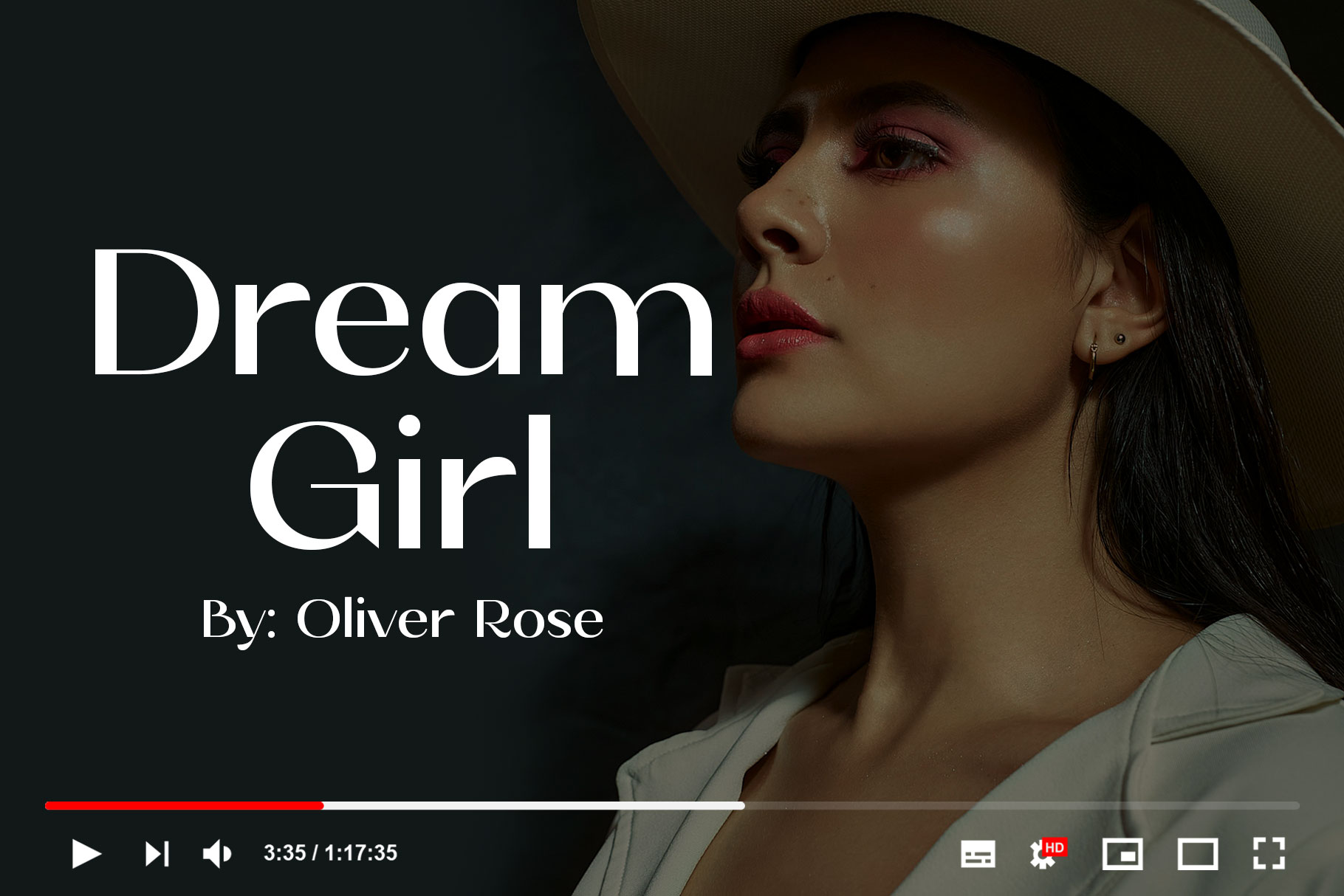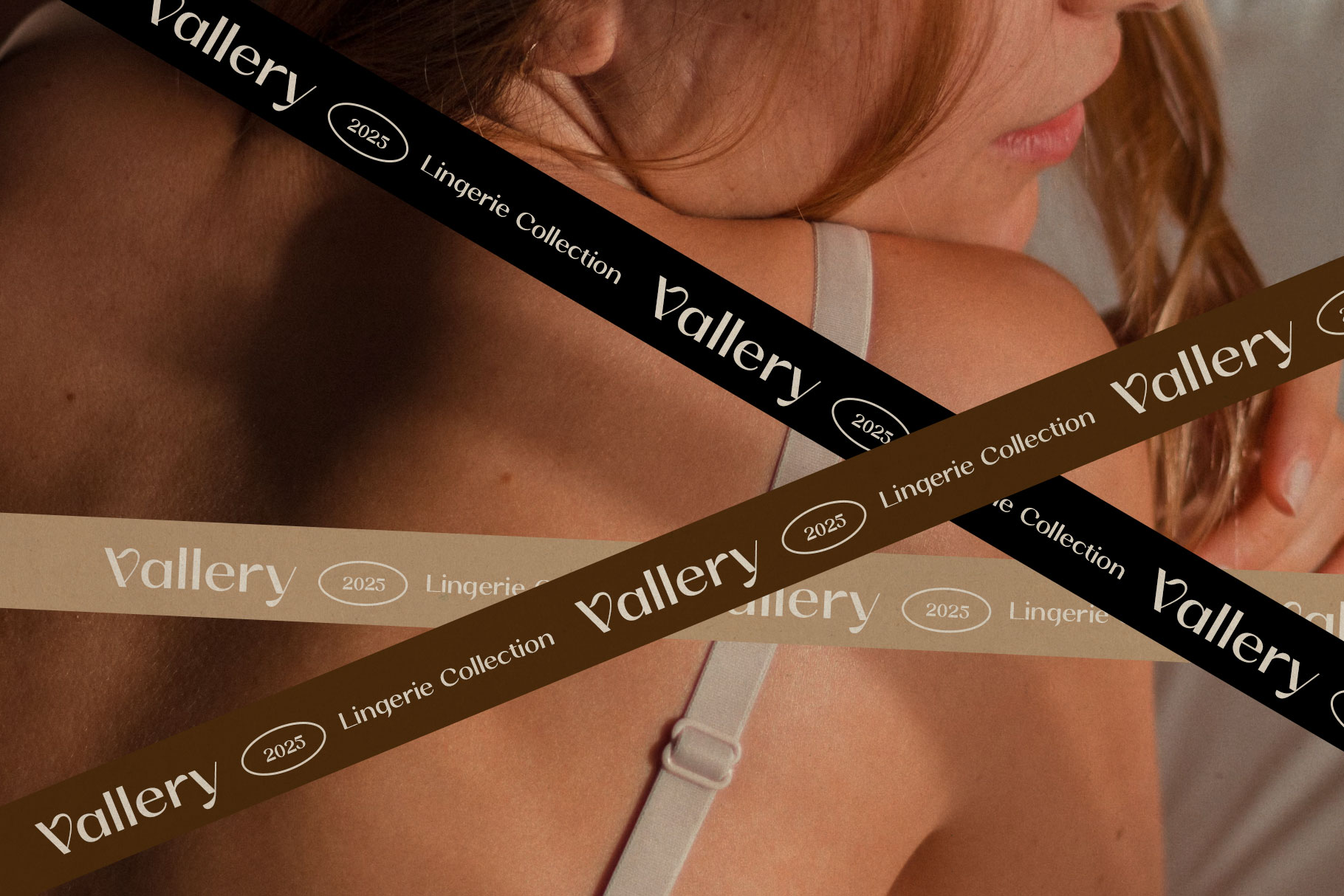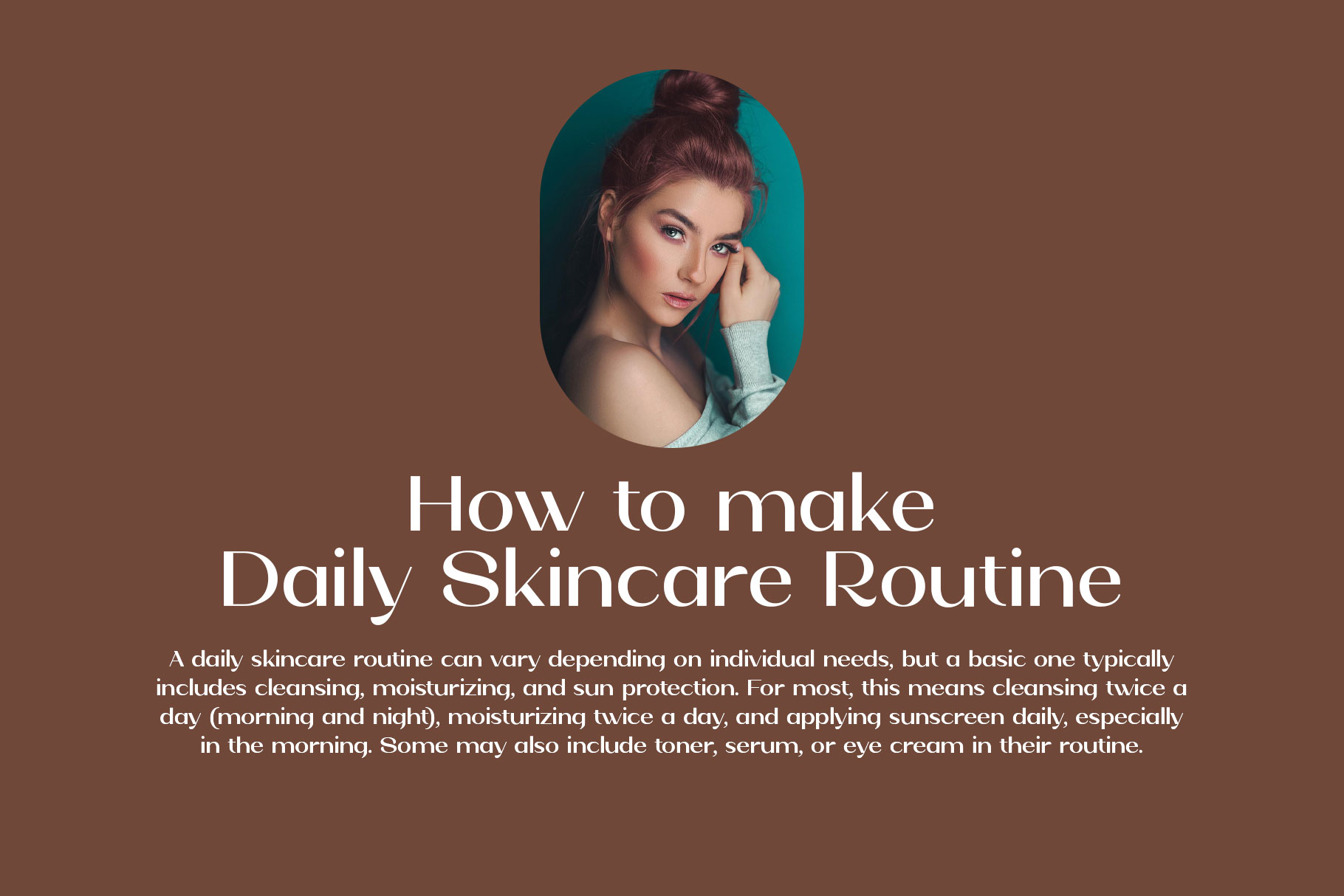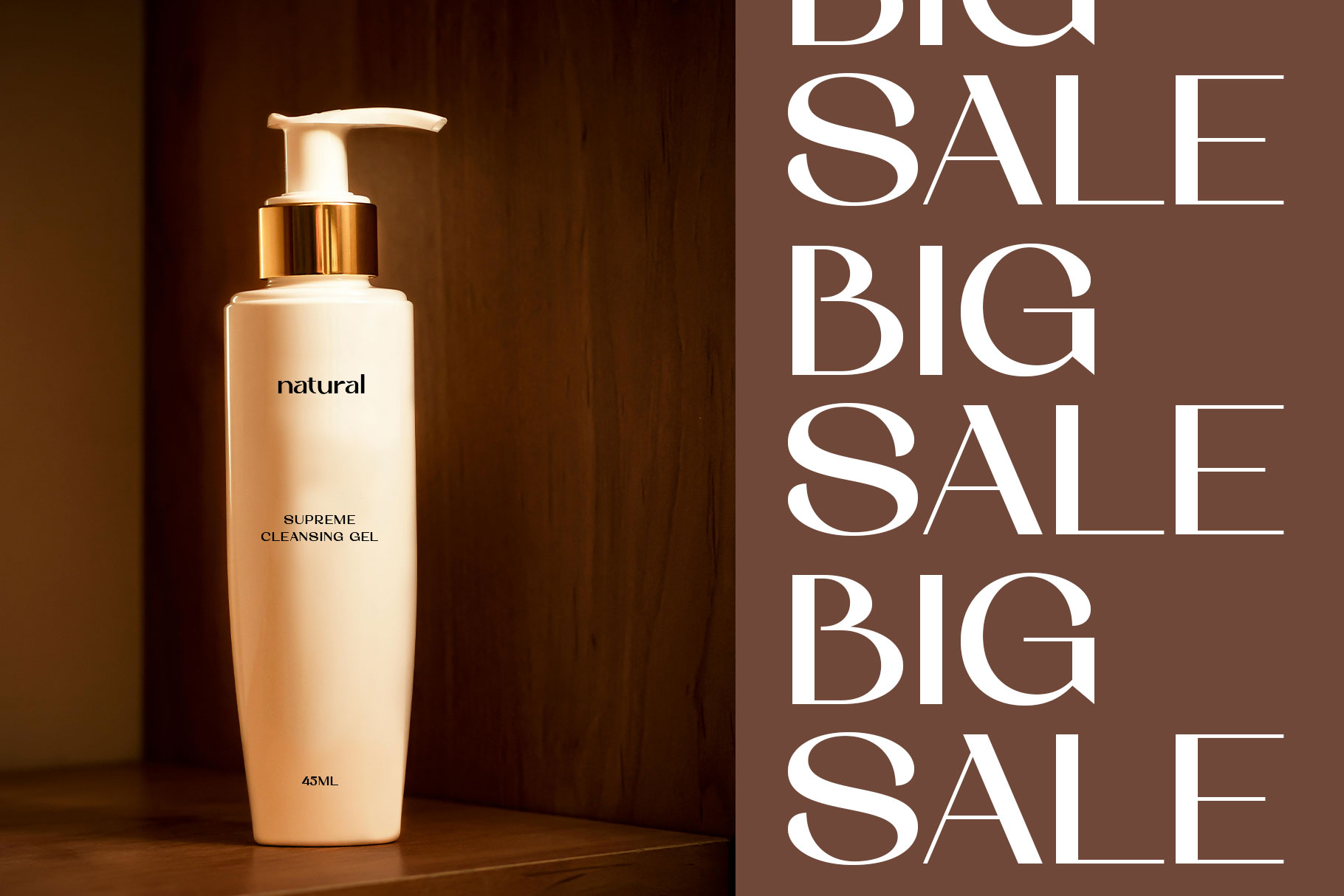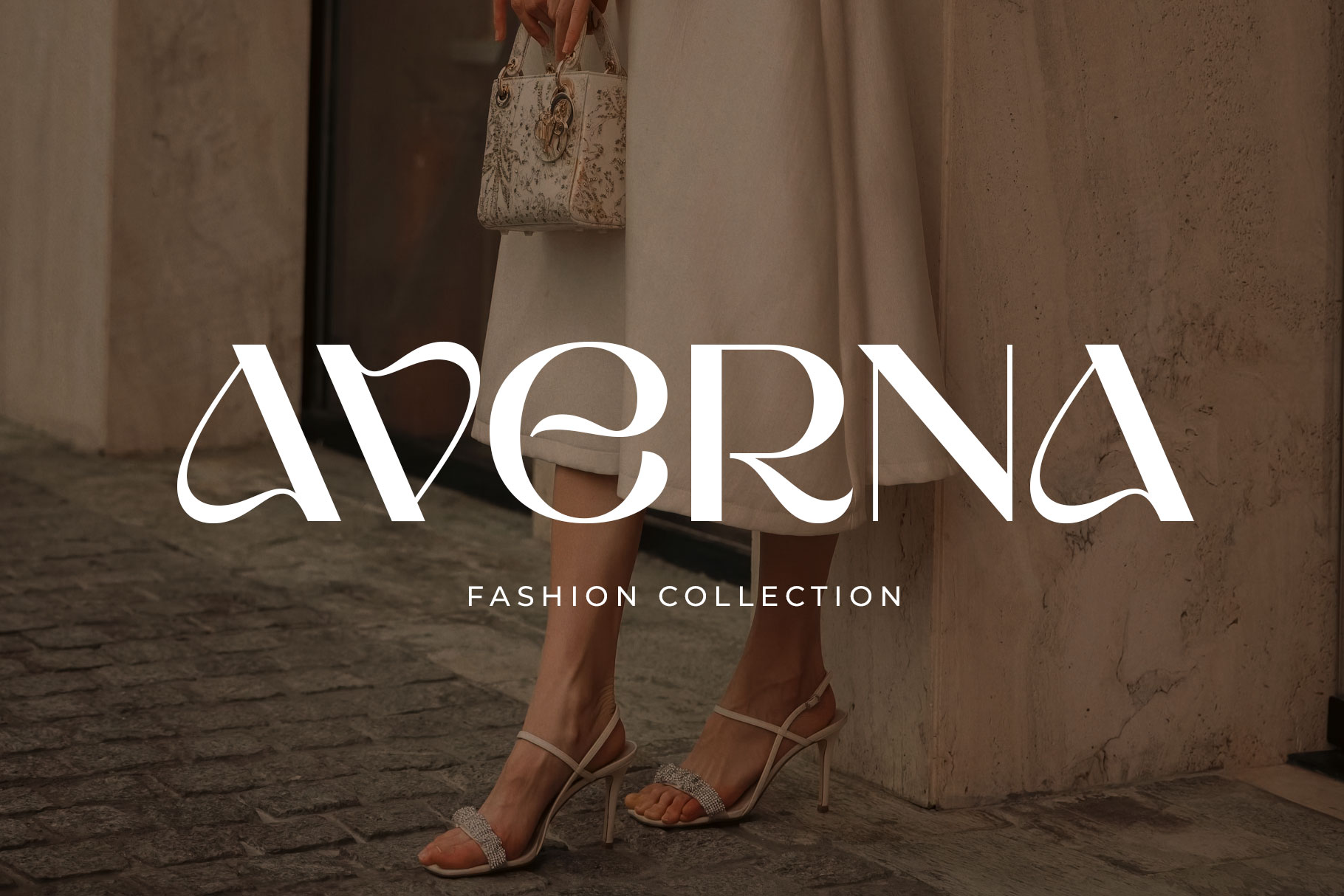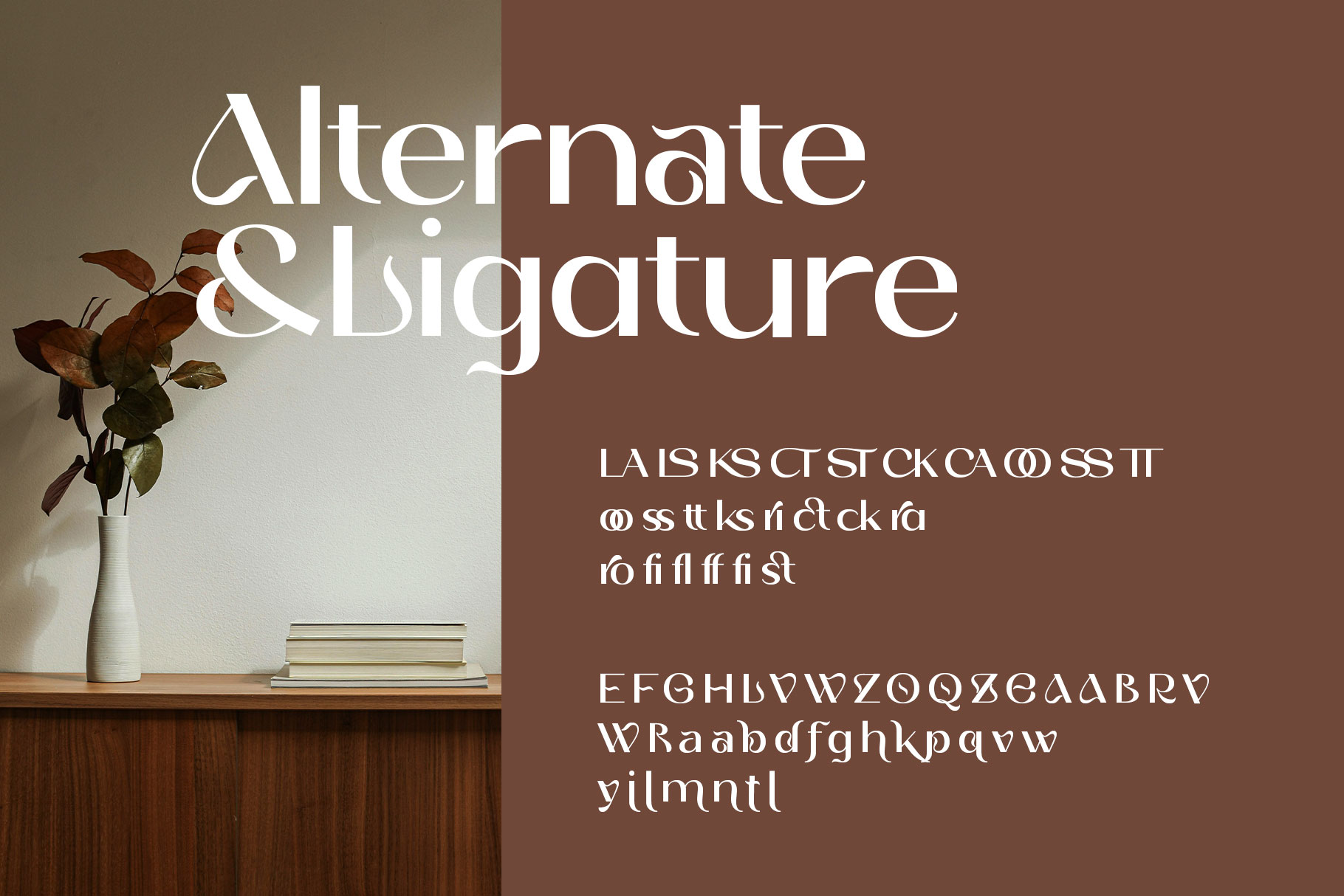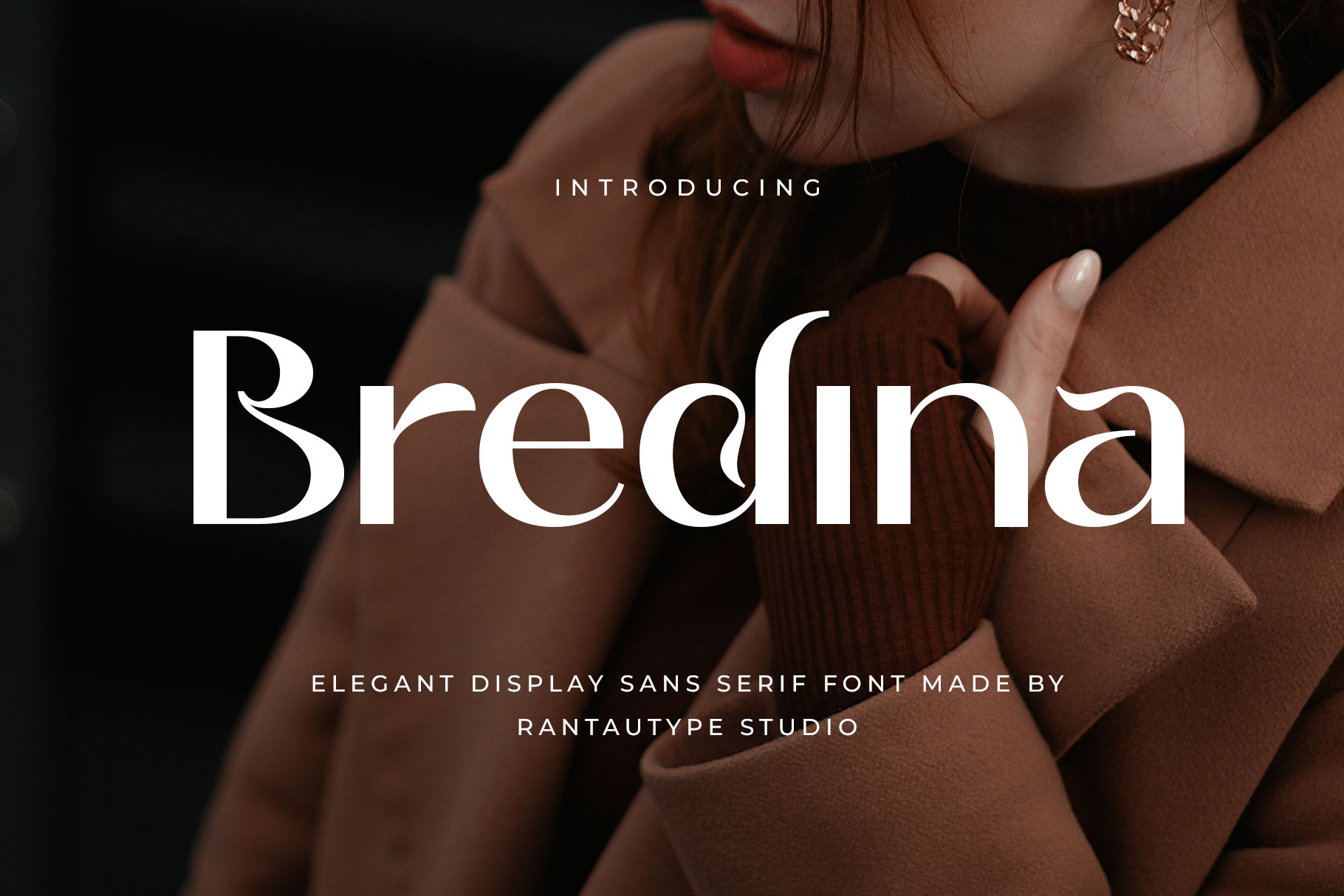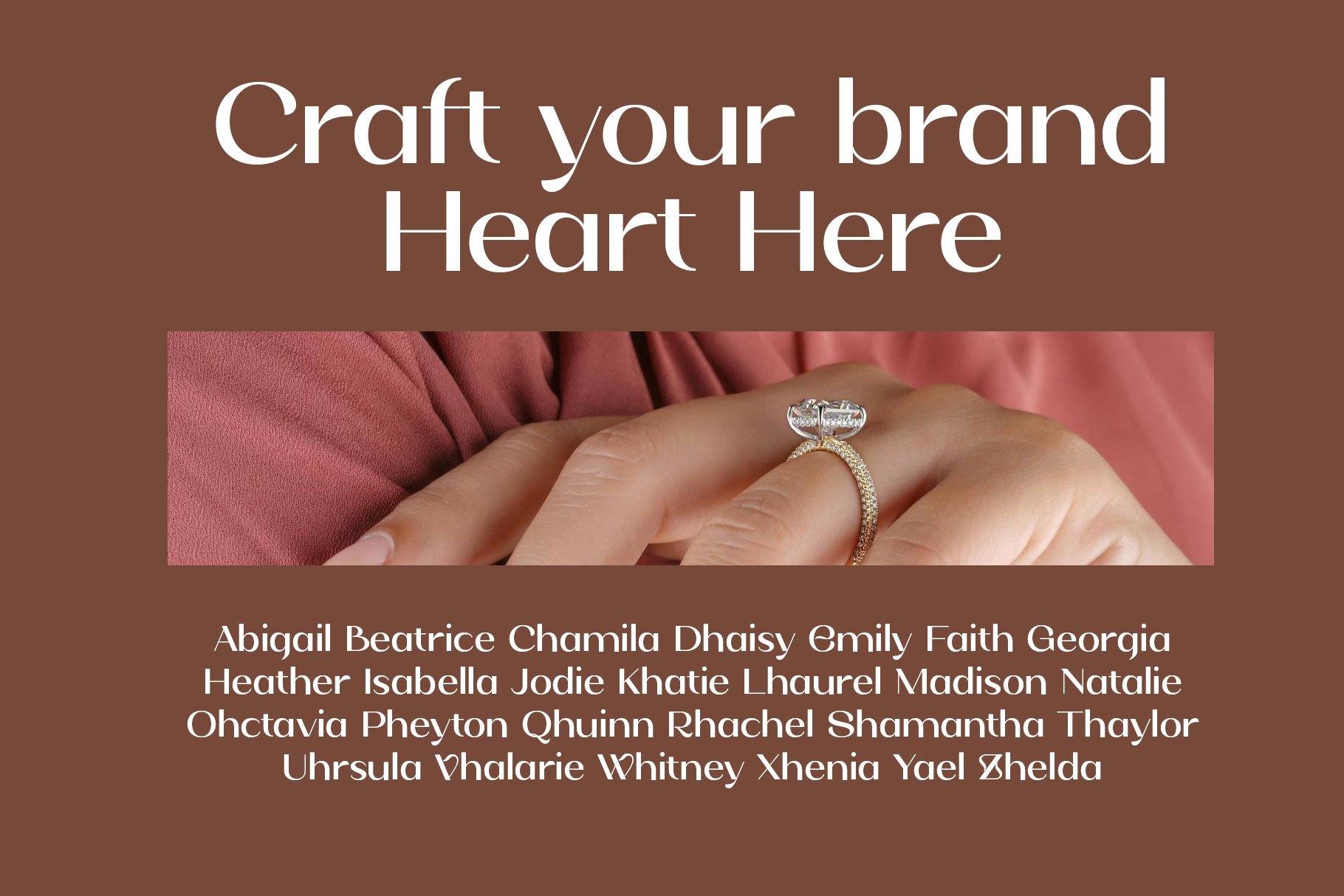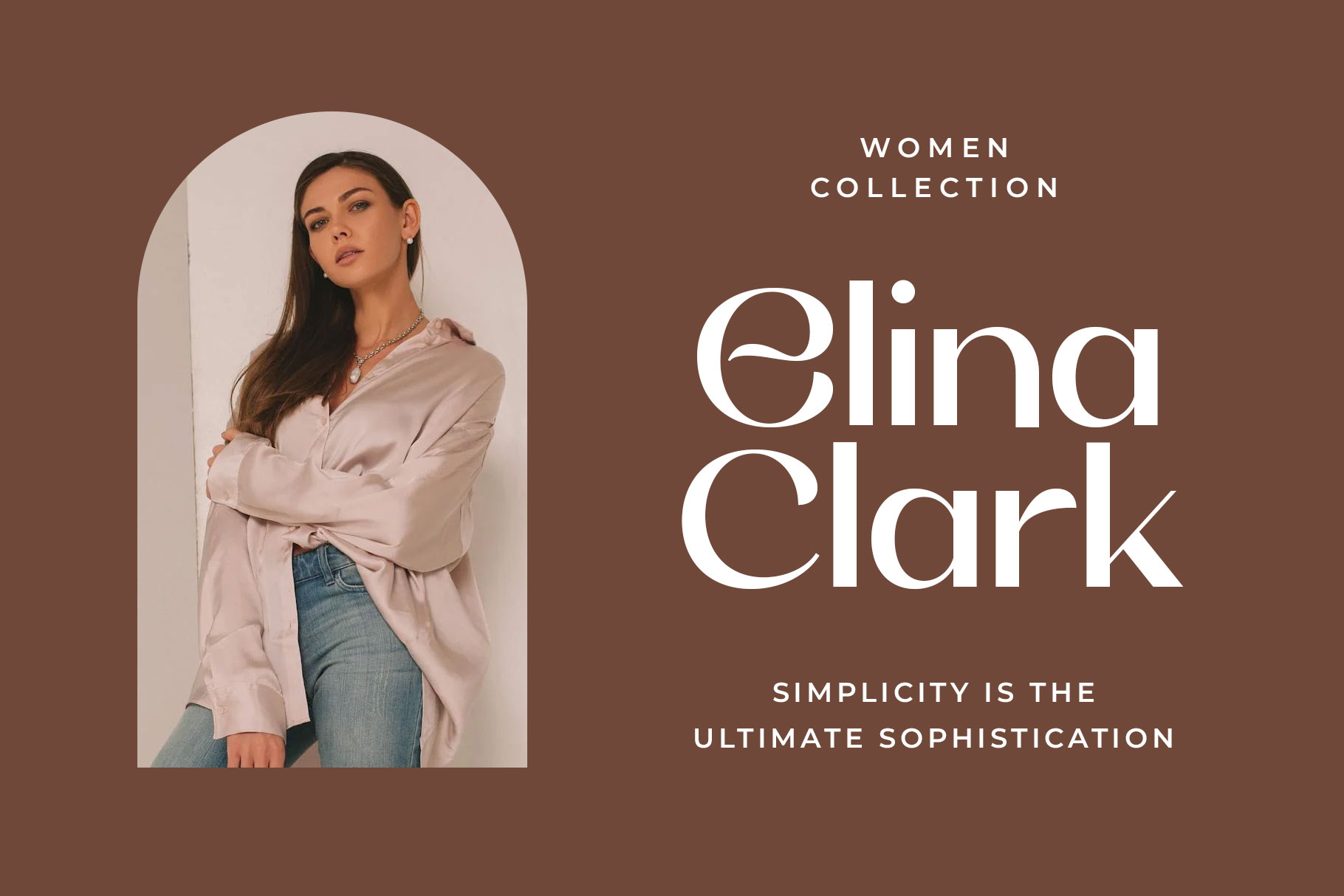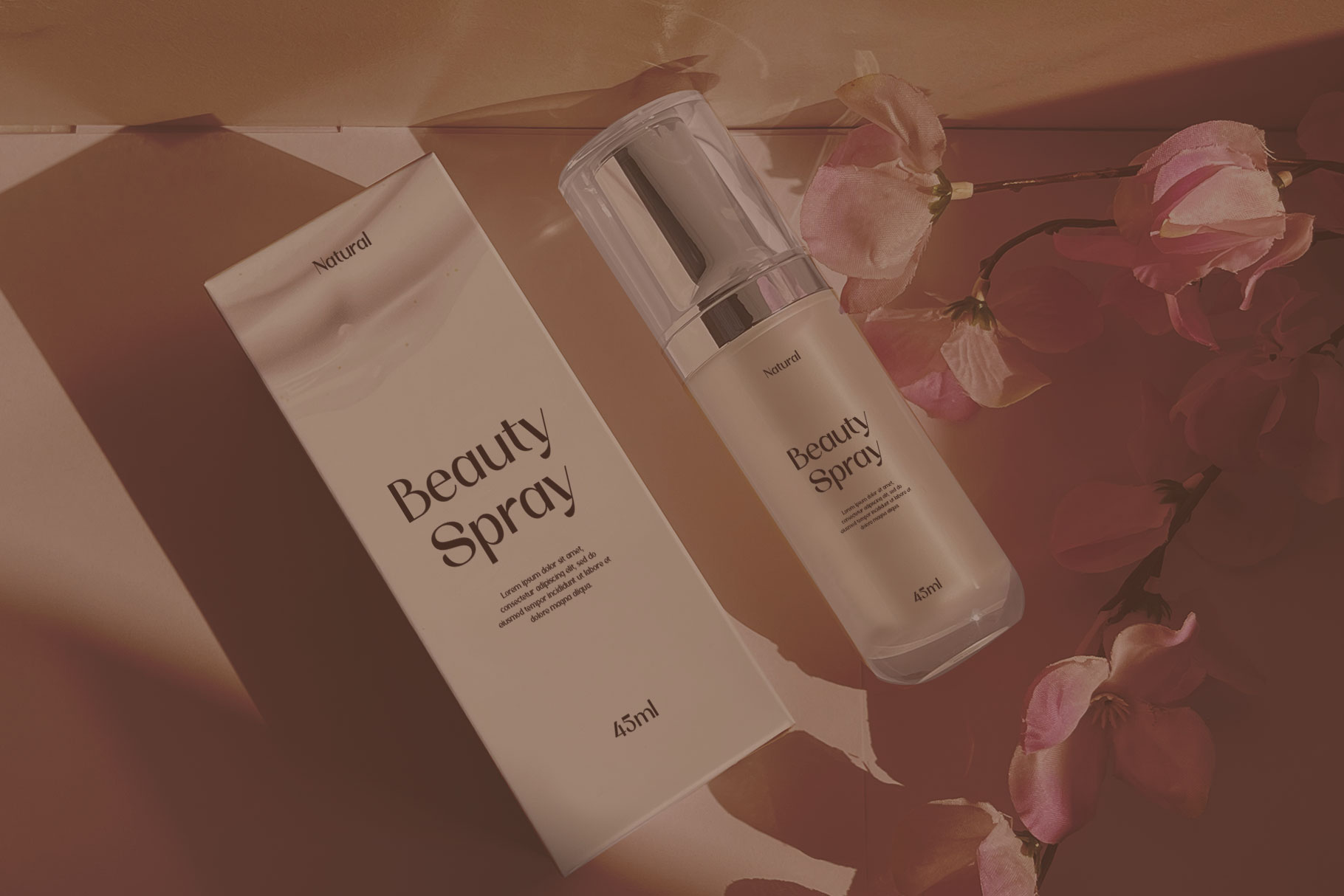
Bredina Elegant Display Sans Serif Font
Bredina is a new font made by rantautype studio embrace grace and feminity. Bredina is a perfectly choice for any creative endeavor, chic, lifestyle design such as logotype, advertisements, watermark on photography, stationery, branding project, display and magazine, invitation, corporate brand, product design, label, business project and many other project with elegant touch.